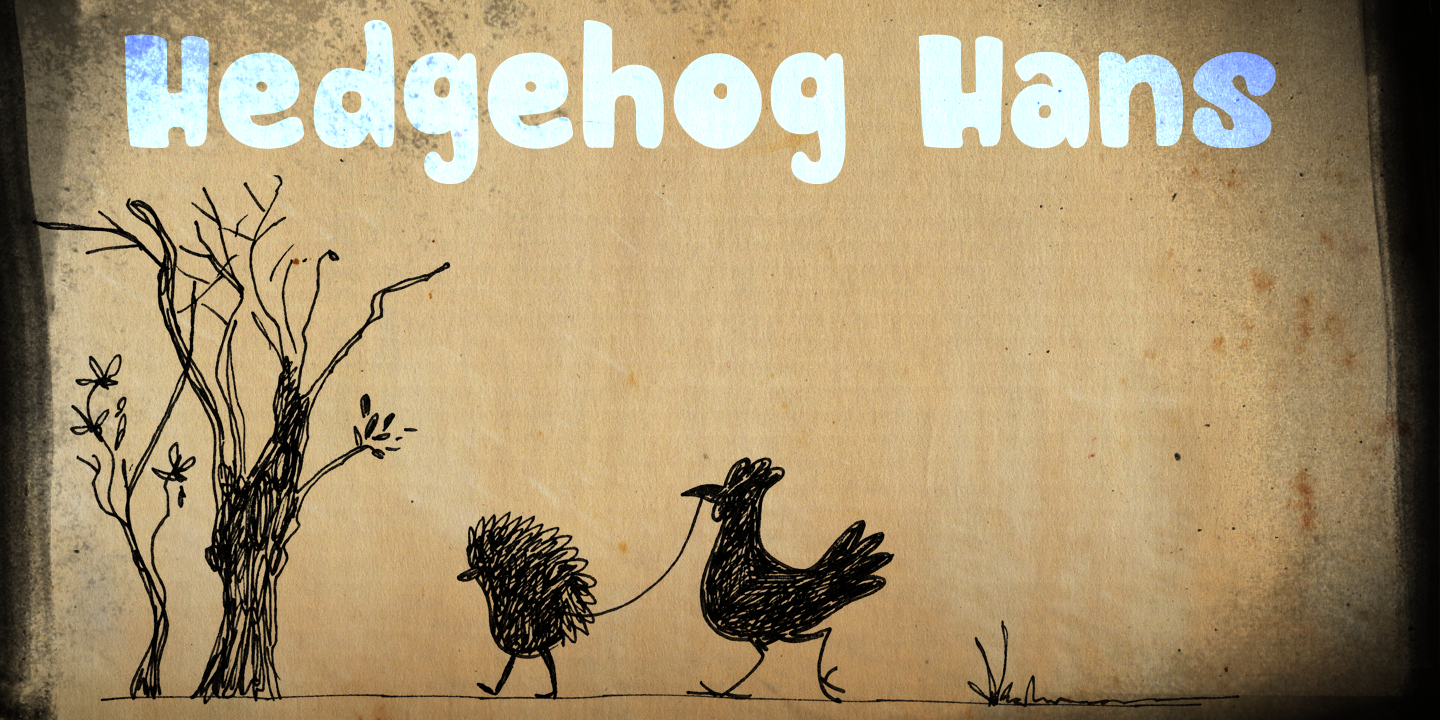
Explore the Hedgehog Hans Font Free Download, a playful and rounded typeface designed by David Kerkhoff and published by Hanoded. This font is available for free download for testing purposes, but you must purchase it for commercial use. Its whimsical, fat design adds a charming, approachable feel to any project.
The Hedgehog Hans Font is perfect for children’s books, posters, greeting cards, educational materials, and playful branding, where its cute and legible style shines. Its rounded edges make it ideal for creating warm, inviting visuals in both print and digital formats.
What makes the Hedgehog Hans Font Free Download exciting is its adorable, fairytale-inspired aesthetic, drawing from the Grimm Brothers’ “Hans My Hedgehog” story. Its bold, chubby letterforms bring a fun, lighthearted vibe, perfect for engaging young audiences or adding a quirky touch.
The Hedgehog Hans Font family includes two styles: Regular and Italic, offering versatility for creative typography. These variations allow designers to craft dynamic, cohesive designs for various applications.